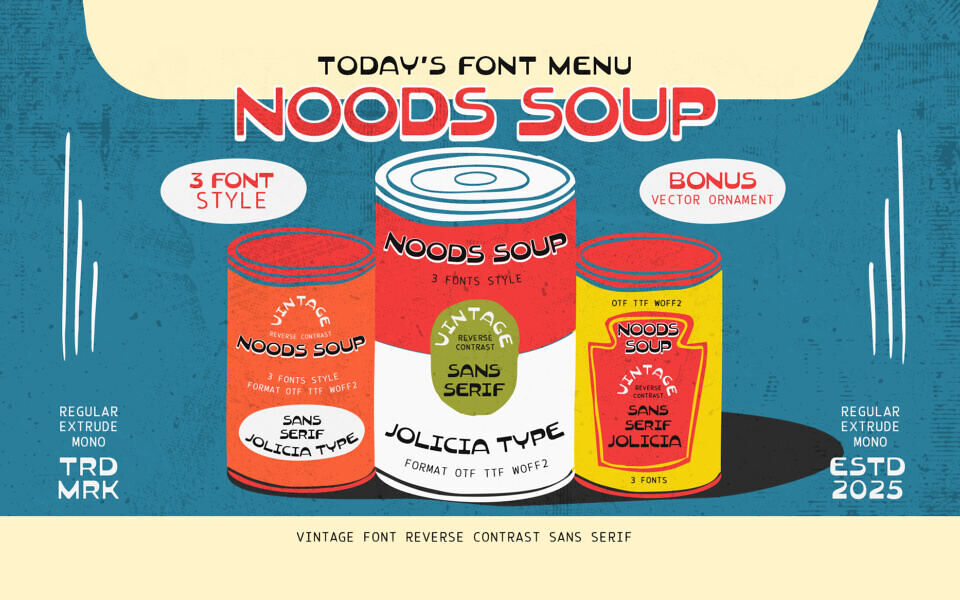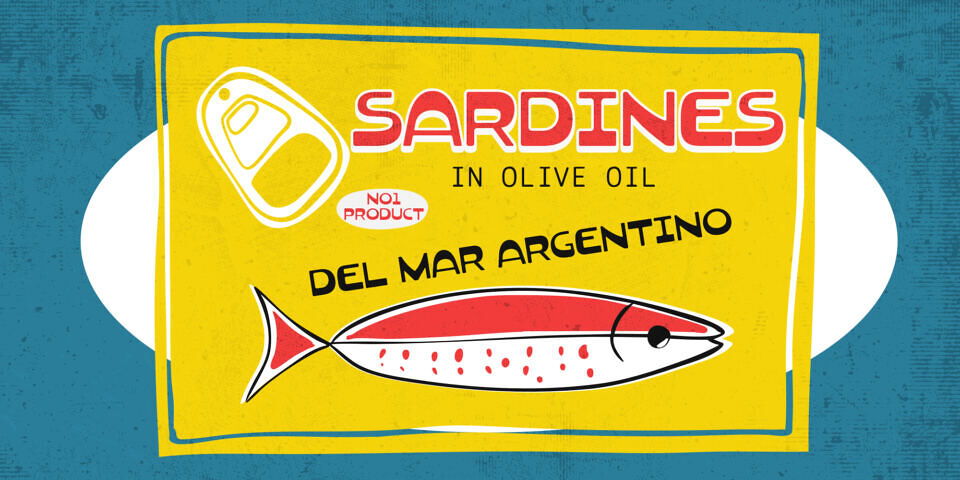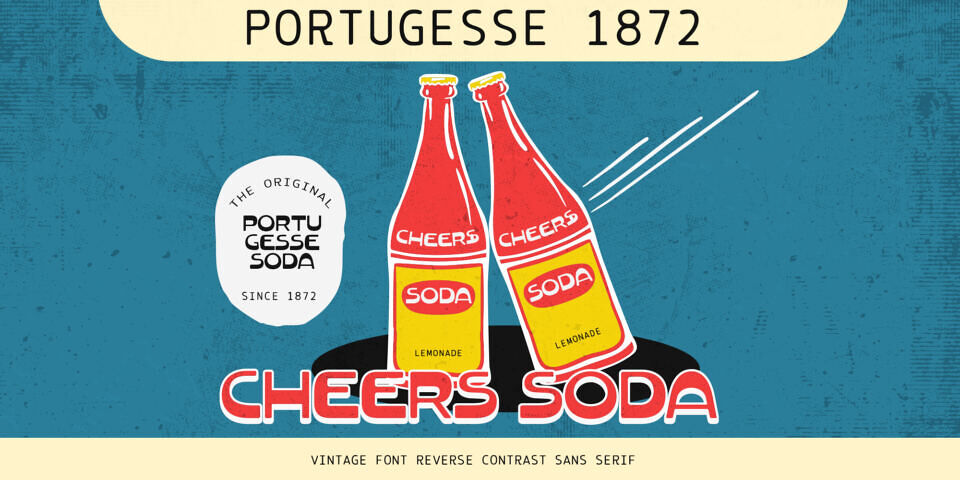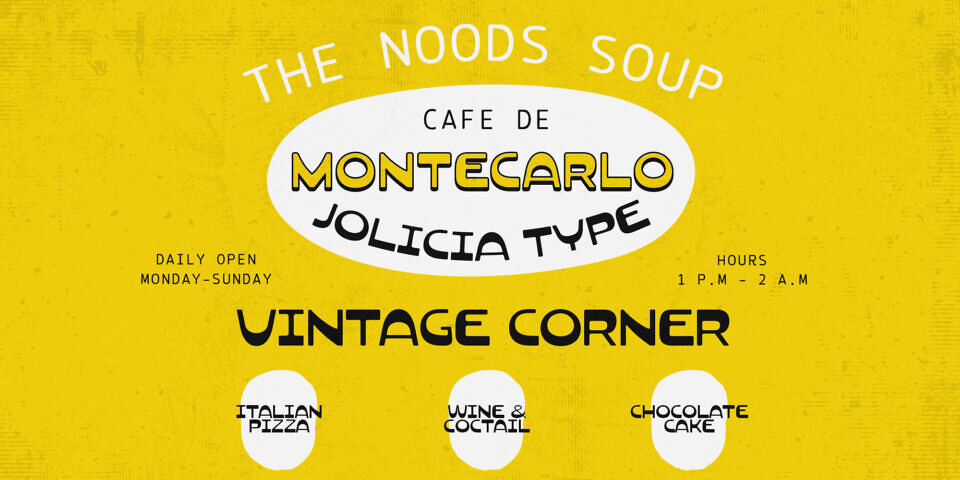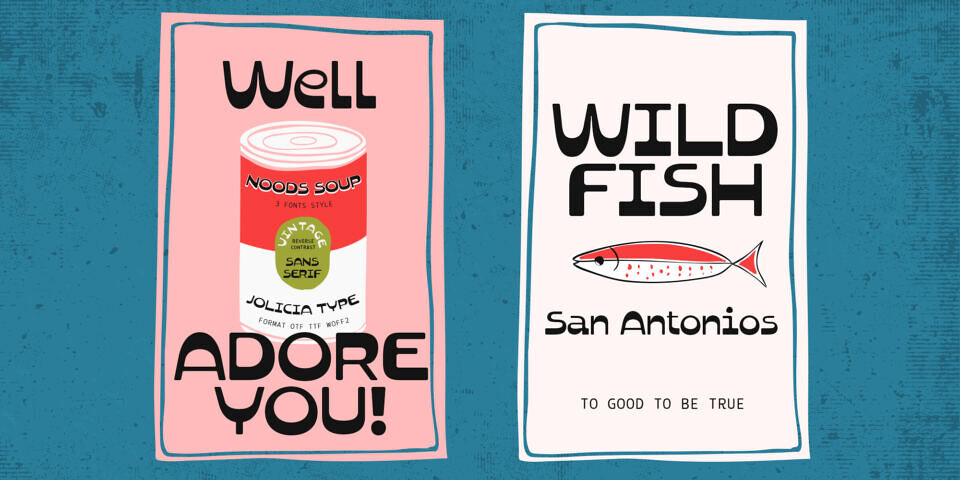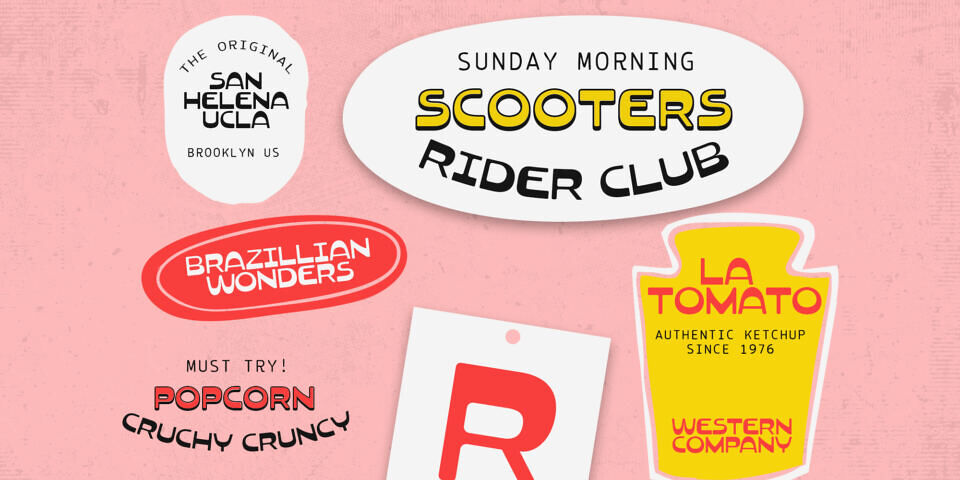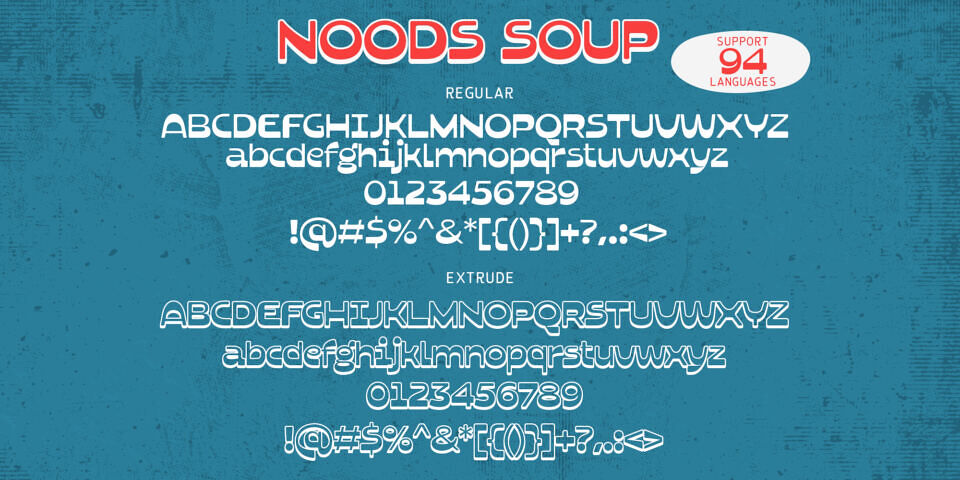
Noods Soup Font
Step back in time with Noods Soup, a typeface that captures the playful spirit of classic retro lettering while remaining relevant for today’s design needs. With its charming details and timeless appeal, this font is designed to bring instant character and personality to your work.
Noods Soup is a retro-inspired typeface with bold characters and a nostalgic touch. This font comes with a unique combination of styles that makes it versatile and perfect for all kinds of vintage-themed designs.
Designed by: Jolicia Type